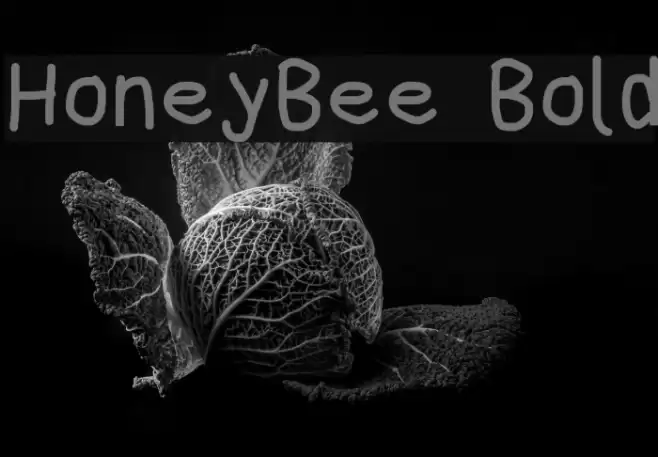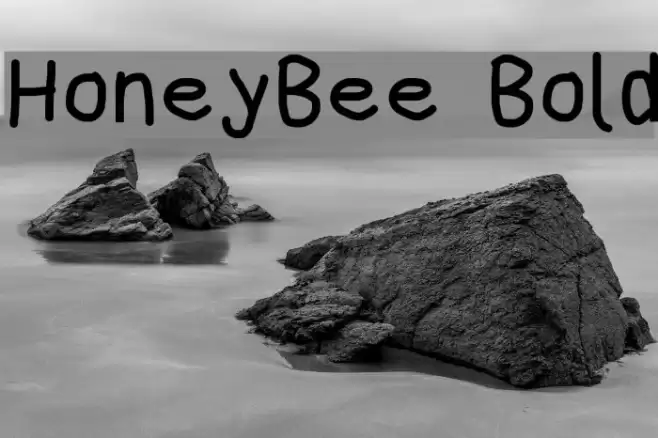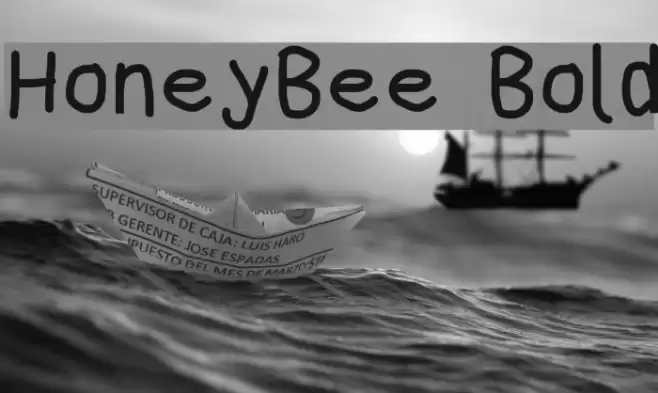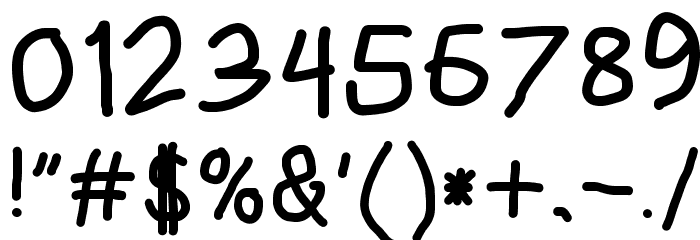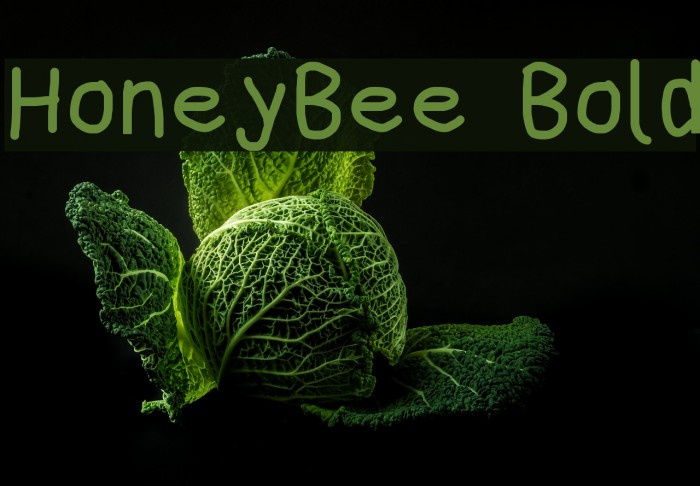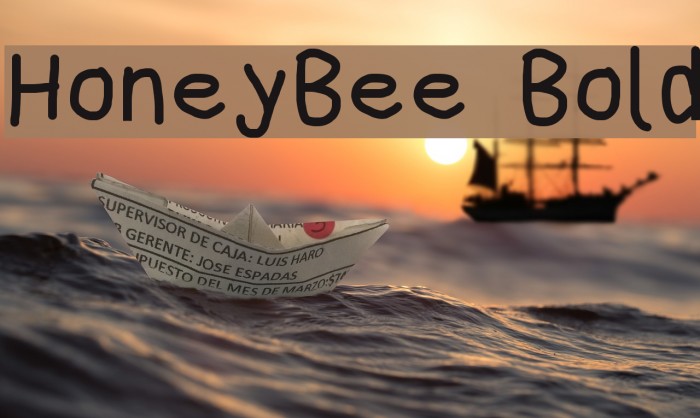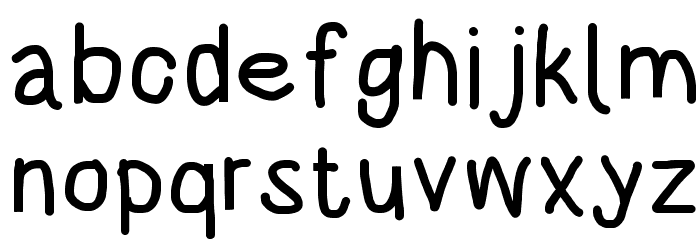
HoneyBee Bold Font
HoneyBee Bold Description
This font features a playful and informal style, characterized by its rounded and slightly irregular letterforms. The strokes are consistent in thickness, giving it a bold appearance. The characters have a hand-drawn quality, adding a personal and approachable feel. The uppercase and lowercase letters maintain a uniform height, while the numerals and special characters are designed to complement the overall aesthetic. This font is ideal for projects that require a friendly and casual tone, such as children's books, greeting cards, and informal branding.
A playful, bold font with rounded, hand-drawn letterforms from Uncategorized fonts.
- Proposed Projects: Ideal for children's books, greeting cards, and informal branding.
- Overall Style: Playful